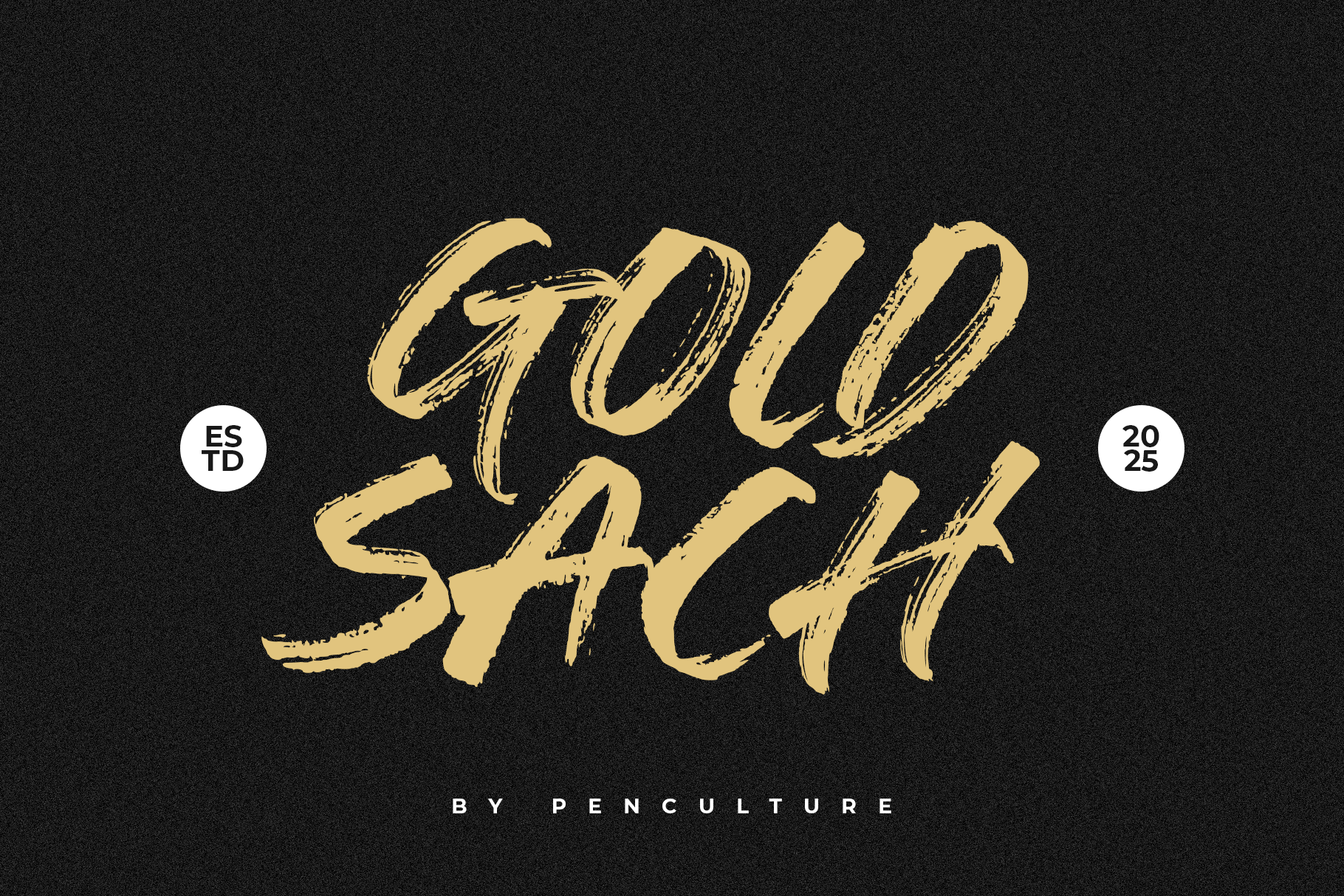
Gold Sach Brush Font
Introducing Gold Sach, a bold and stylish brush script font designed to bring a touch of handcrafted charm to your creative projects. With its smooth curves and natural brush strokes, Gold Sach is perfect for making a statement in logos, branding, packaging, advertising, social media posts, and more.
Whether you're working on a modern brand identity or looking to add a personal flair to your designs, Gold Sach offers both elegance and versatility. Its dynamic letterforms make it ideal for headlines, quotes, and eye-catching typography.